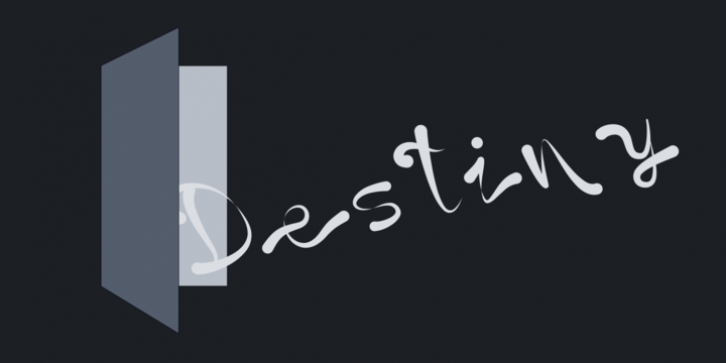
Destiny is a new multilingual display typeface. This type family of Medium weight plus matching italic, designed by Manuel Ramos in 2014, offers elegant and harmonious style.